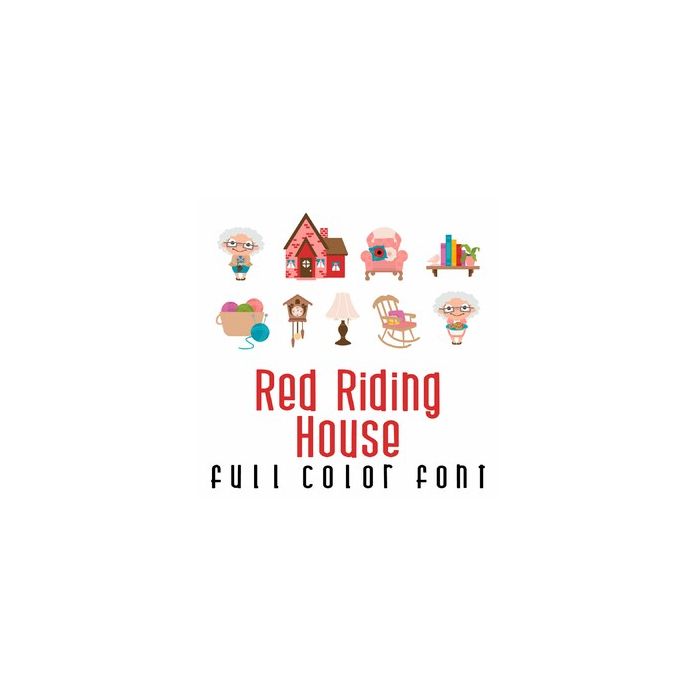
This adorable full-color font features 26 images from a classic grandmother's house. Perfect for cards, crafts, gifts, classrooms, teachers, planner stickers, parties, scrapbook pages, and more!